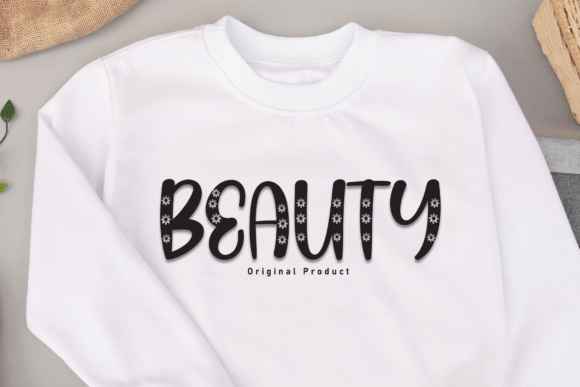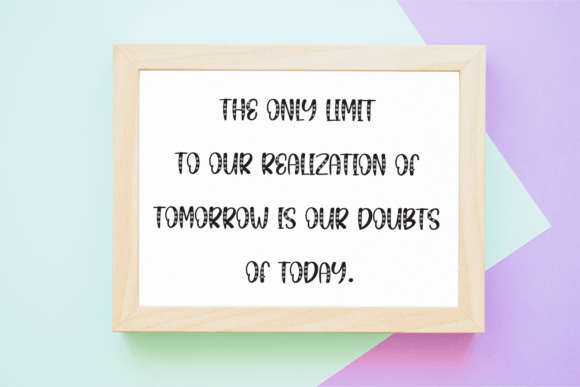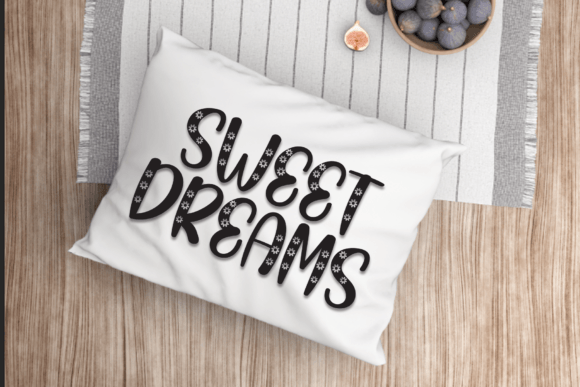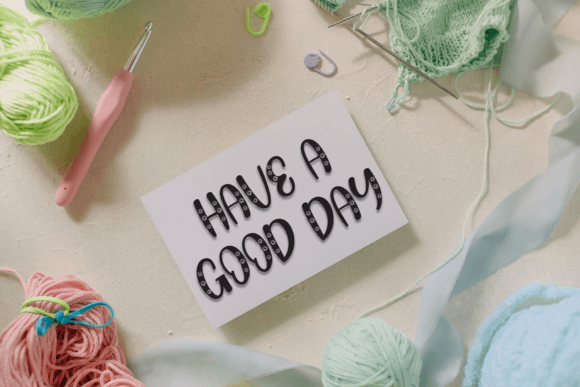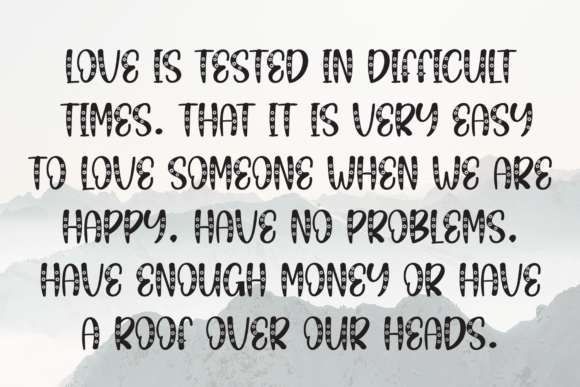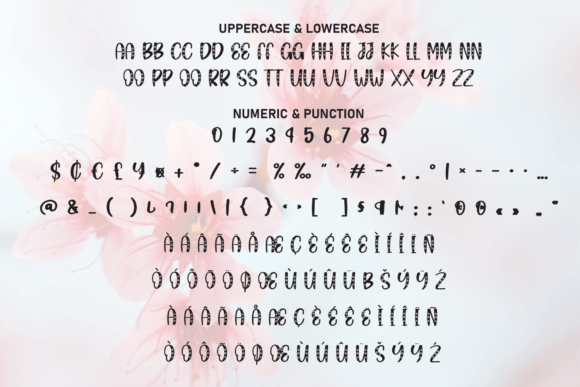
Blooming Flower Font: Bringing Nature’s Beauty to Your Designs
Are you looking for a font that can add a touch of freshness and playfulness to your designs? Look no further than the Blooming Flower font! This bold handwritten display font is perfect for creating invitations, greeting cards, and cheerful designs that capture the beauty of nature.
What Makes Blooming Flower Font Special?
Blooming Flower font is a unique and eye-catching font that features rounded edges and a whimsical touch. Its playful and flowing style makes it perfect for adding a warm and friendly feel to any project. The font’s bold and expressive letters are designed to evoke the feeling of blooming flowers, making it ideal for spring-inspired designs, floral patterns, and garden-themed projects.
Perfect for Invitations and Greeting Cards
Blooming Flower font is a great choice for creating invitations and greeting cards for special occasions such as weddings, birthdays, and holidays. Its playful and cheerful style adds a personal touch to your cards and invitations, making them stand out from the rest. You can use the font to create beautiful and eye-catching titles, headings, and body text that will make your cards and invitations truly special.
Cheerful Designs and More
Blooming Flower font is not just limited to invitations and greeting cards. You can use it to create a wide range of cheerful designs, including:
- Floral patterns and garden-themed designs
- Spring-inspired posters and flyers
- Wedding and event branding
Key Features of Blooming Flower Font
Blooming Flower font has several key features that make it a great choice for designers and crafters:
- Bold and expressive letters: The font features bold and expressive letters that are designed to evoke the feeling of blooming flowers.
- Rounded edges: The font’s rounded edges give it a soft and playful feel that’s perfect for creating cheerful designs.
- Whimsical touch: The font’s whimsical touch adds a touch of personality and charm to your designs.
- Easy to read: Despite its bold and playful style, the font is easy to read and can be used for both headings and body text.
Tips for Using Blooming Flower Font
Here are some tips for using Blooming Flower font in your designs:
- Use it as a display font: Blooming Flower font is perfect for use as a display font for titles and headings.
- Pair it with a simple font: Pair the font with a simple font for body text to create a beautiful contrast.
- Experiment with colors: The font looks great in bright and pastel colors, so don’t be afraid to experiment and find the perfect color scheme for your design.
- Add some texture: Adding some texture to your design can help to give it a more organic and natural feel that complements the font perfectly.
Blooming Flower font is a beautiful and unique font that’s perfect for designers and crafters who want to add a touch of nature’s beauty to their designs. Its playful and flowing style makes it perfect for invitations, greeting cards, and cheerful designs, while its bold and expressive letters are sure to grab attention. With its rounded edges and whimsical touch, Blooming Flower font is a great choice for anyone looking to add a warm and friendly feel to their projects.
So why not give Blooming Flower font a try and see how it can bring a touch of freshness and playfulness to your designs?